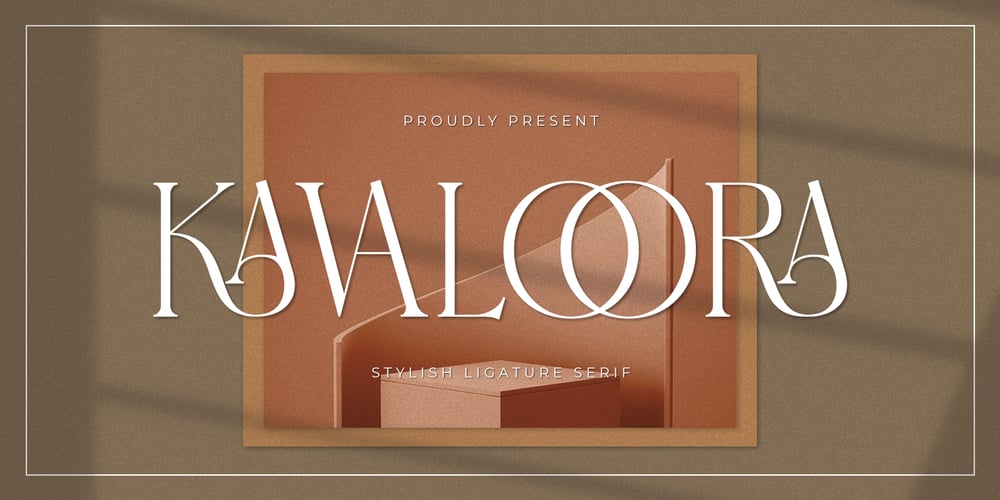
Kavaloora Font Family was designed by Abdul Malik Wisnu, Rivo Adriansyah and published by Mokatype Studio. Kavaloora contains 2 styles and family package options. Hello Introducing, Kavaloora – Stylish Ligatures Serif is an elegant, unique font that uses ligatures to smoothly link letters. inspired by the famous minimalist logo, perfect for the purposes of designing templates, brochures, videos, advertising branding, logos and more. Perfect for adding a unique twist to word-mark logos, monograms or pull quotes. Kavaloora has 2 style Regular and Line, 22 ligatures and 8 Alternate Glyphs as well as numbers and punctuation making it super fantastic. Accessible in the Adobe Illustrator, Adobe Photoshop, Adobe InDesign, even work on Microsoft Word. PUA Encoded Characters – Fully accessible without additional design software. Fonts include multilingual support. Image used : All photographs/pictures/vector used in the preview are not included, they are intended for illustration purpose only.Thank You